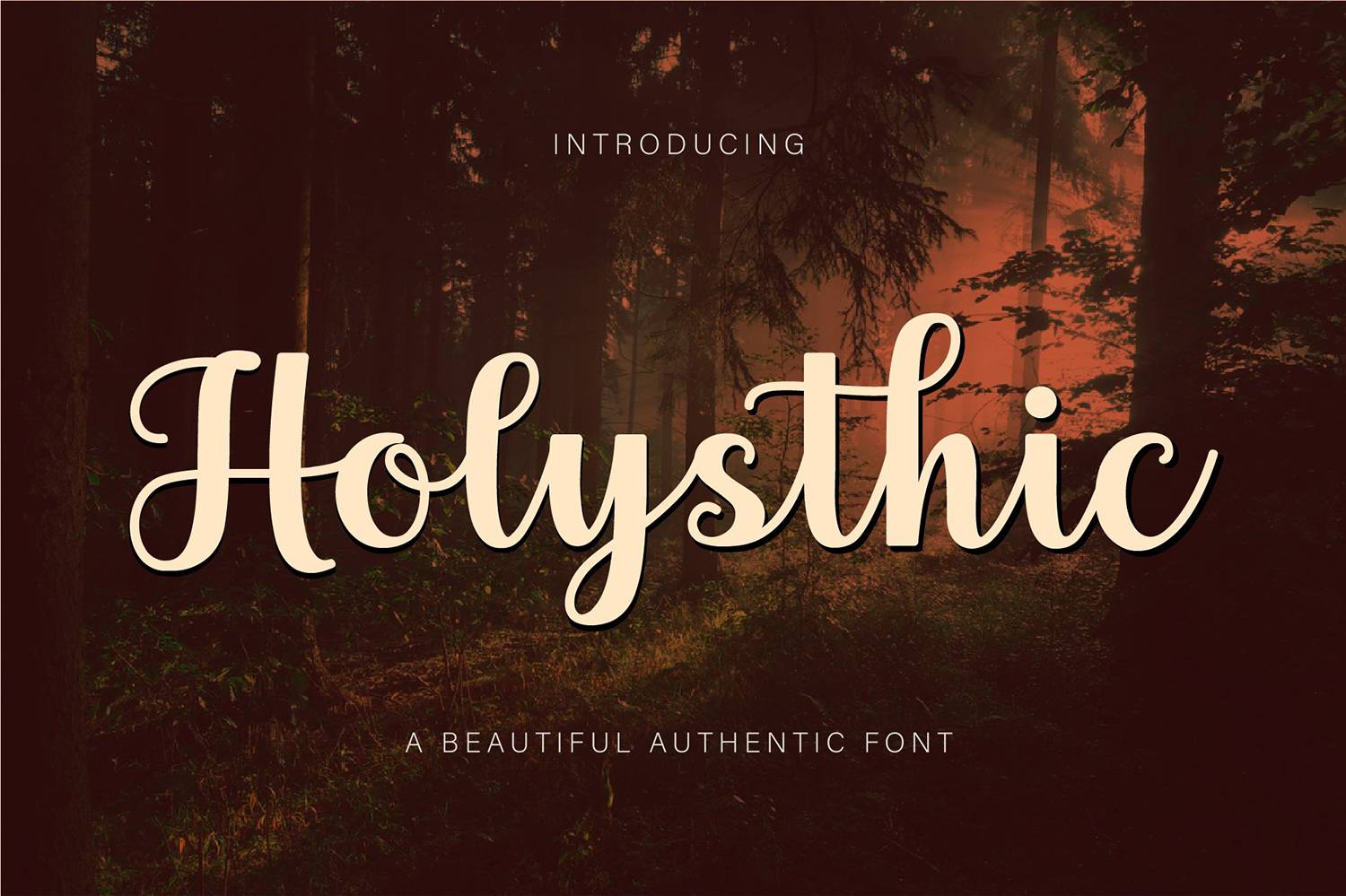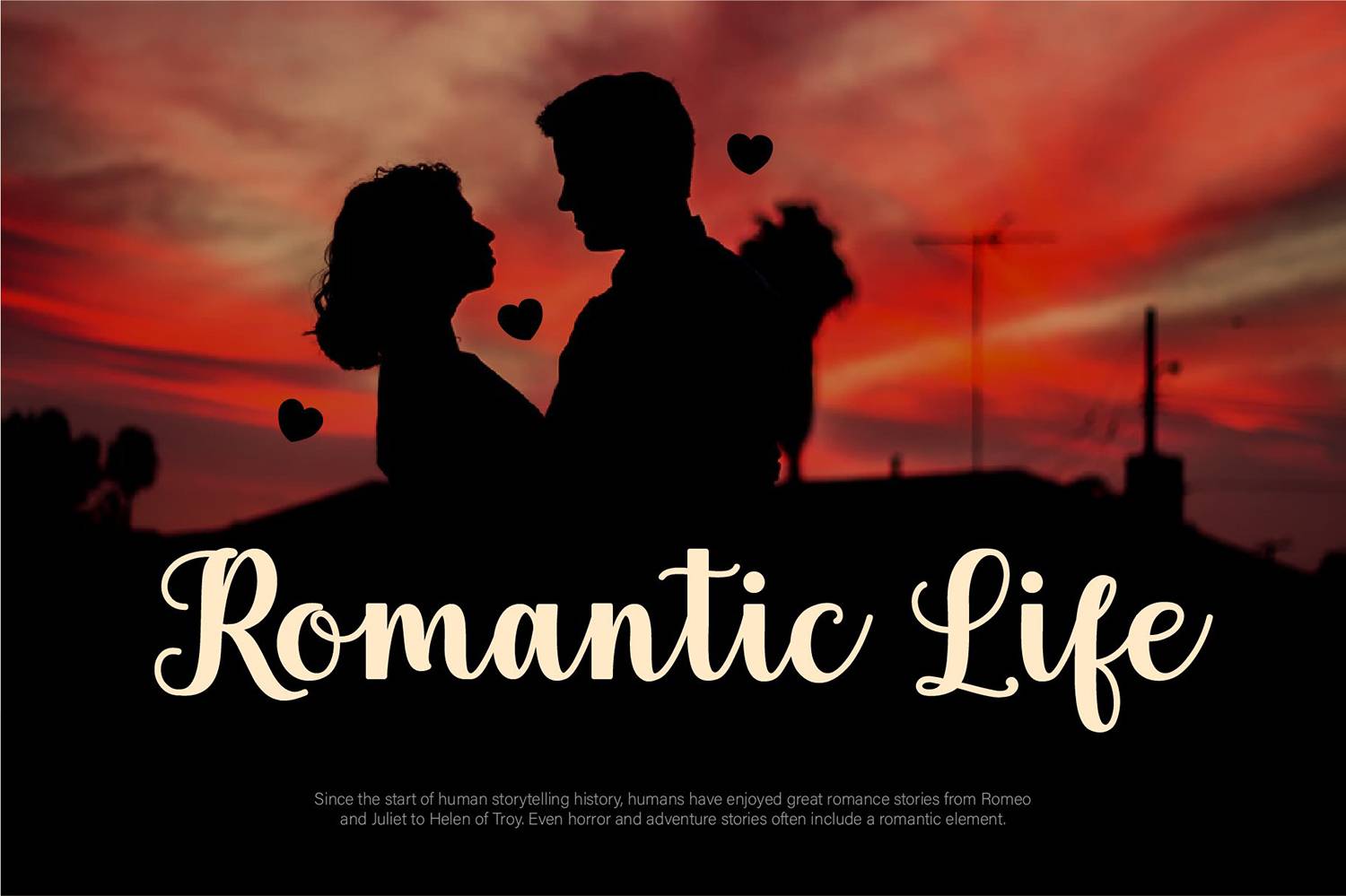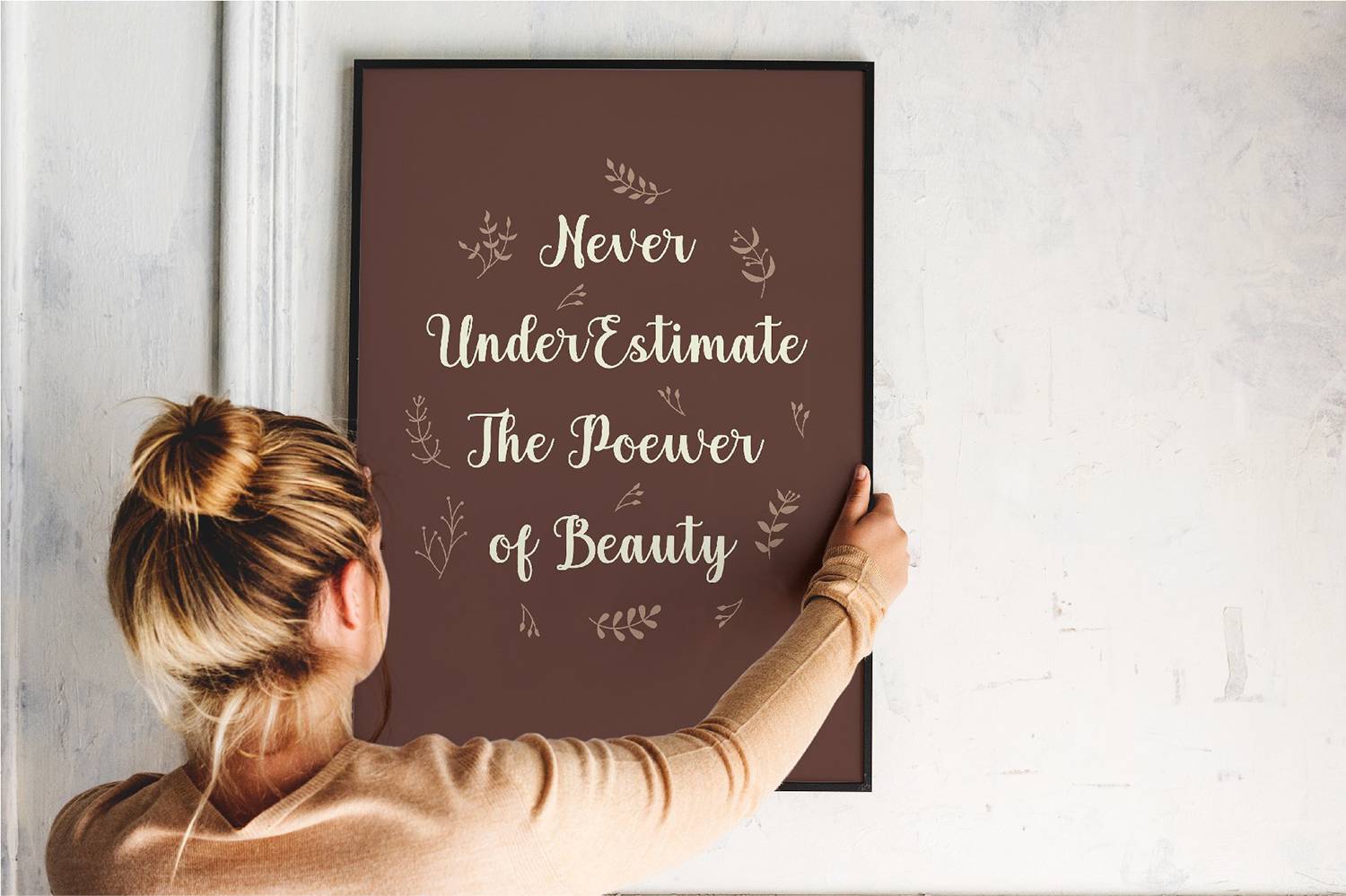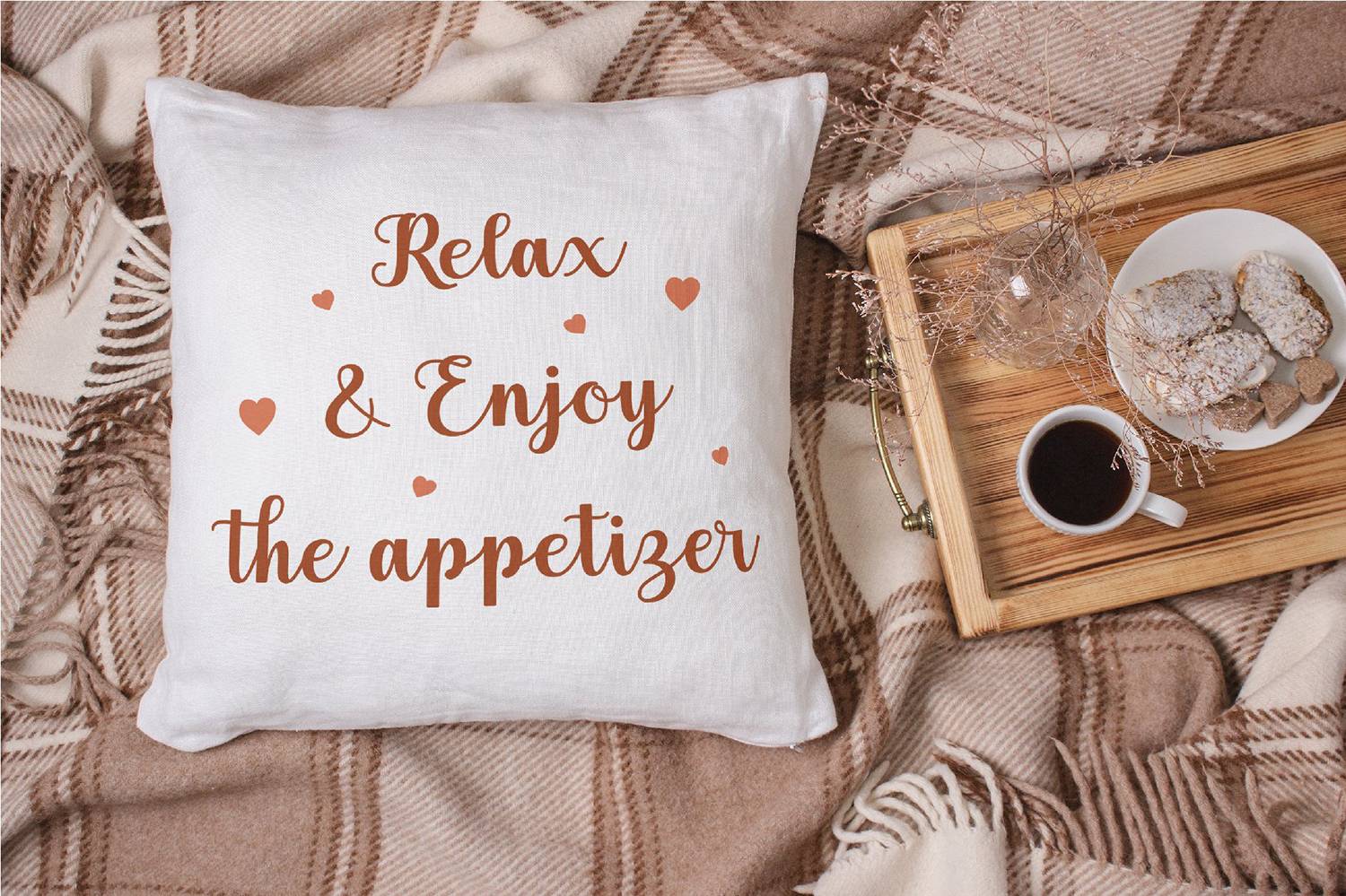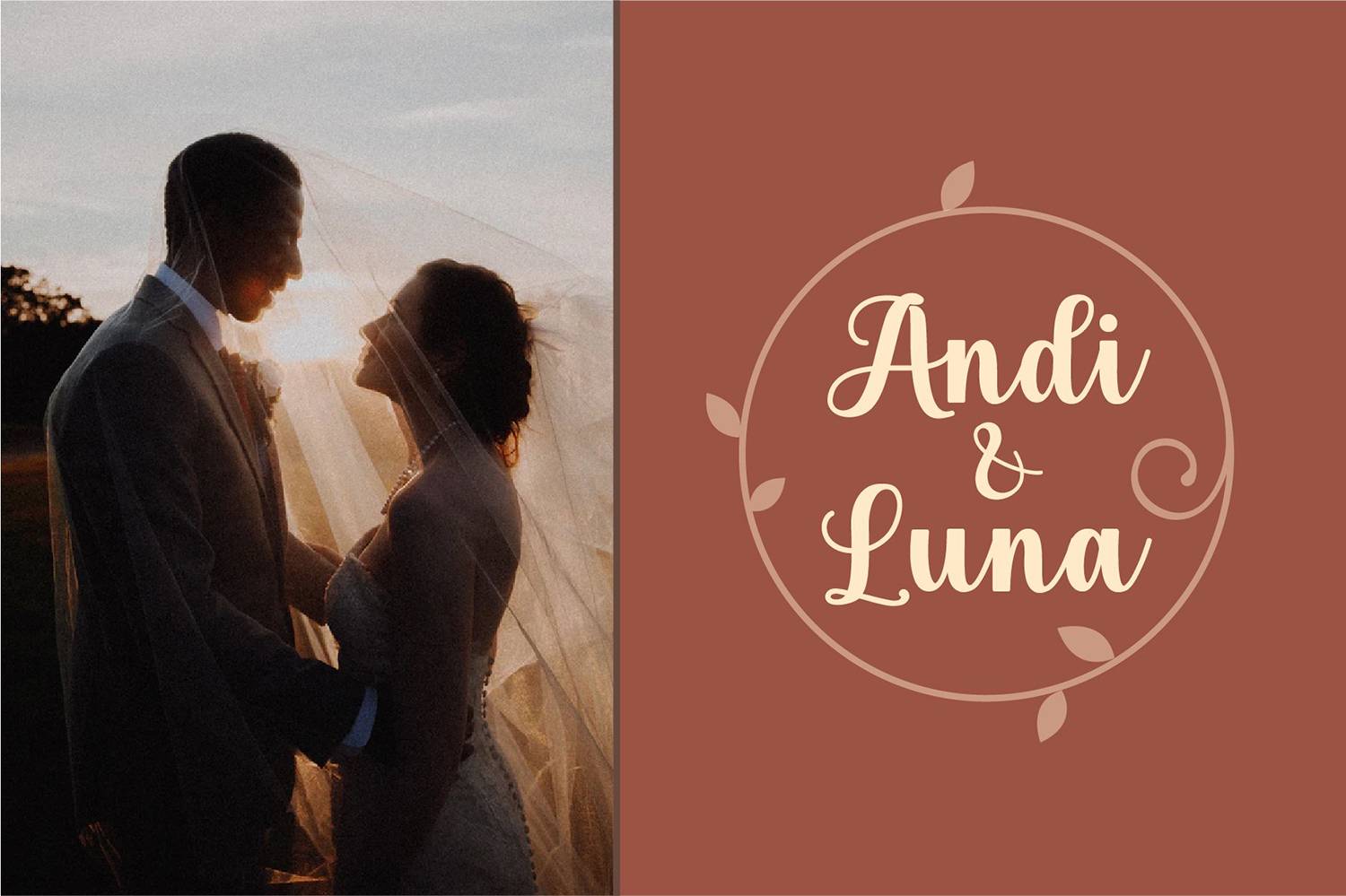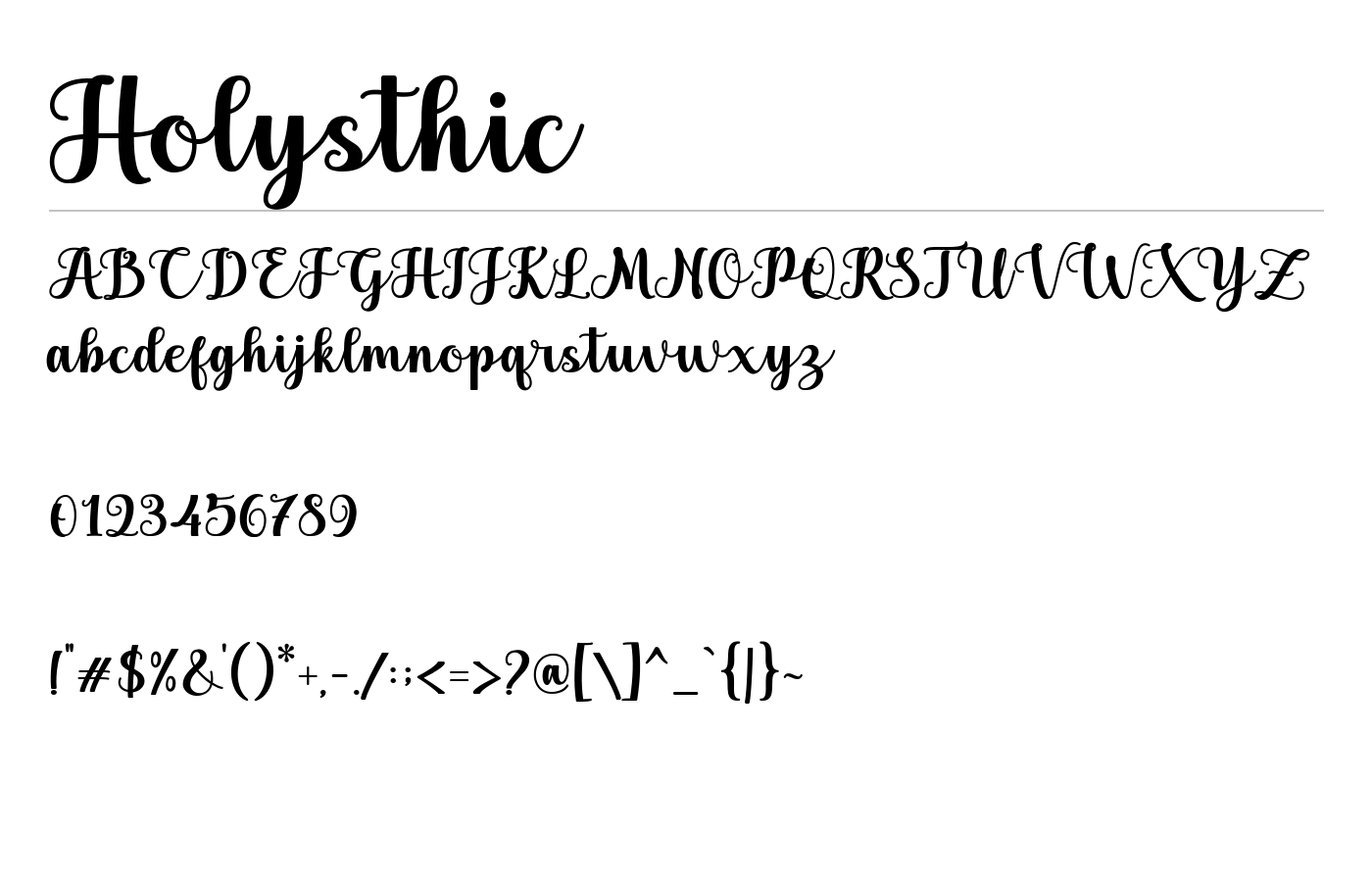
Holysthic is a charming script font with a playful yet elegant personality. It features smooth, flowing letterforms with moderate contrast and delicate curls, making it ideal for creating inviting and stylish designs. Perfect for branding, invitations, and decorative headlines, Holysthic adds a warm and creative touch to any project.
Holysthic Font
About Holysthic Font